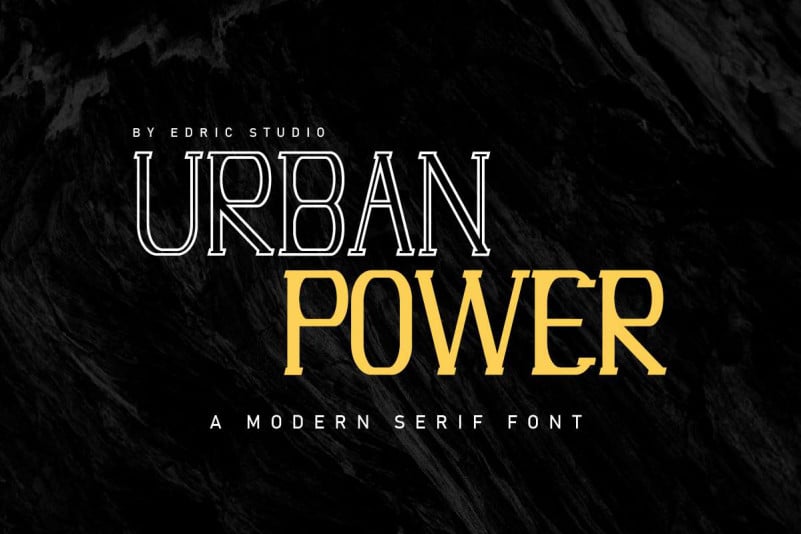
Urban Power Modern Serif Font
Urban Power is a Decorative Display Serif font, made here in Indonesia. The artists/designers of this beautiful tyeface is Renata and Sarah Suci.
The styles of Urban Power are classic, luxury, gold, vintage, stylish, sophisticated and casual.